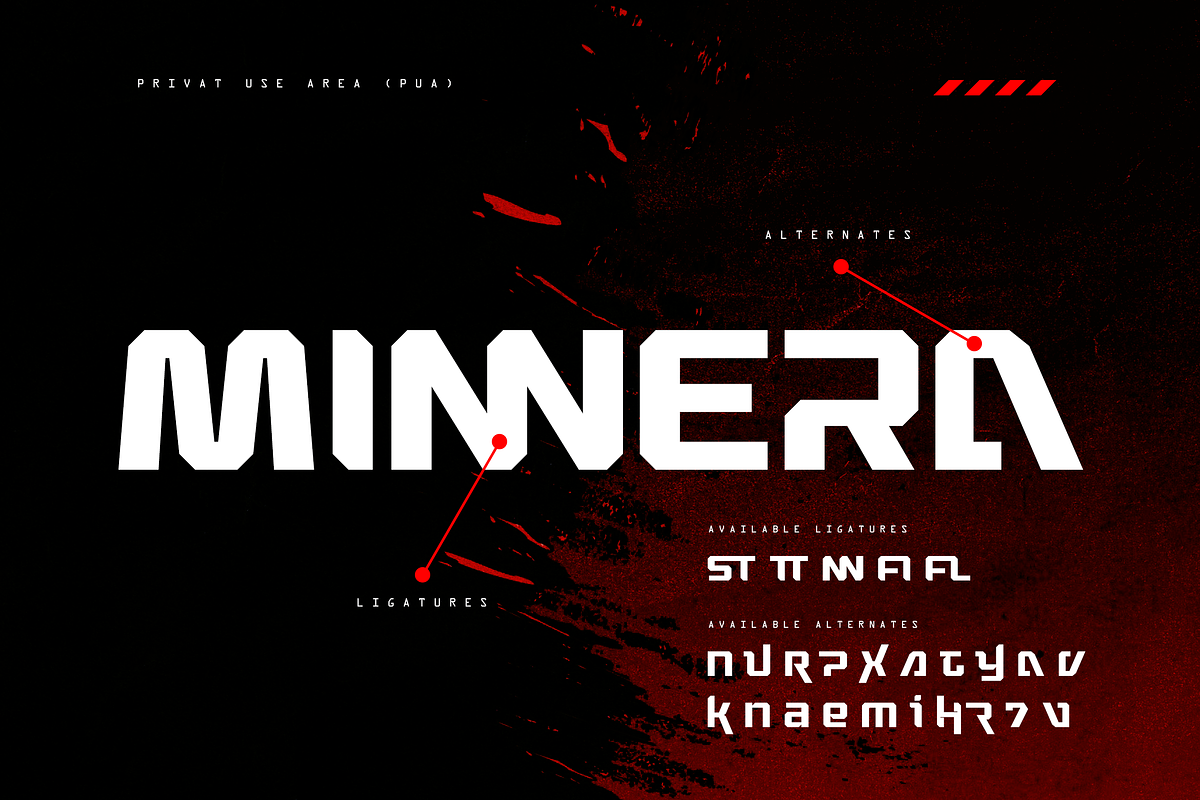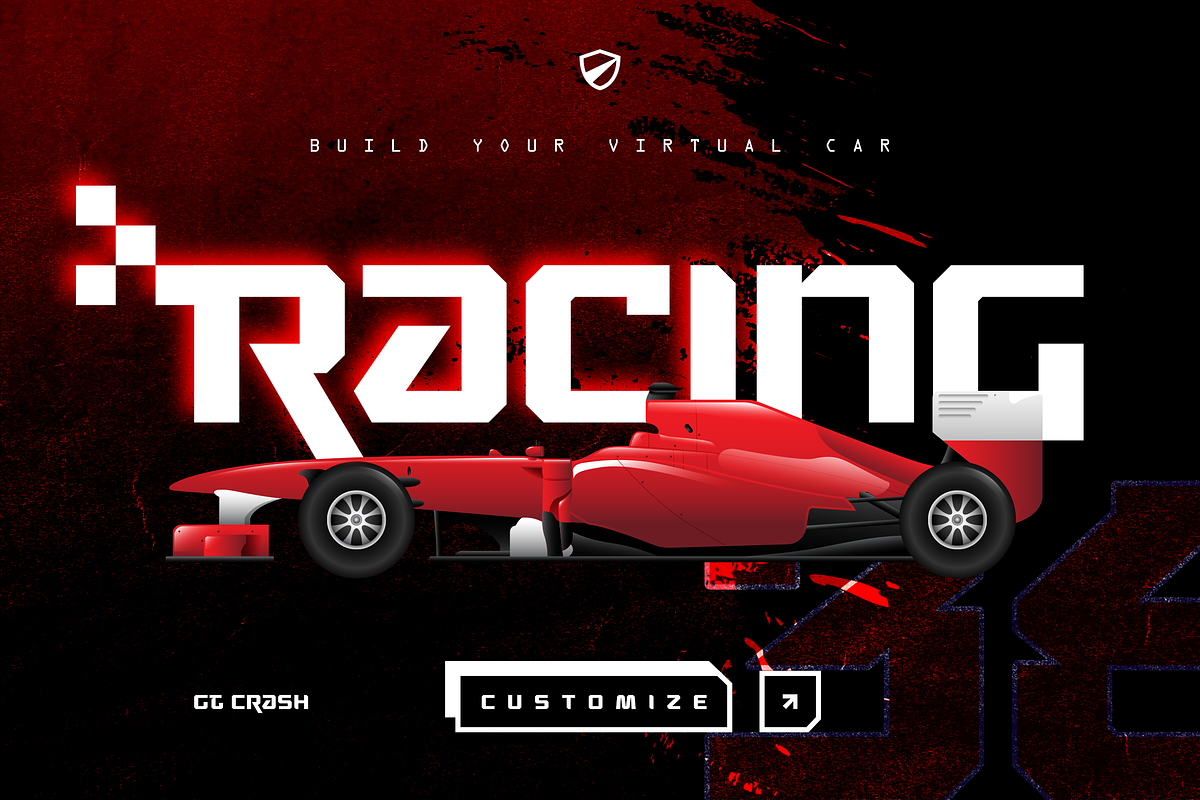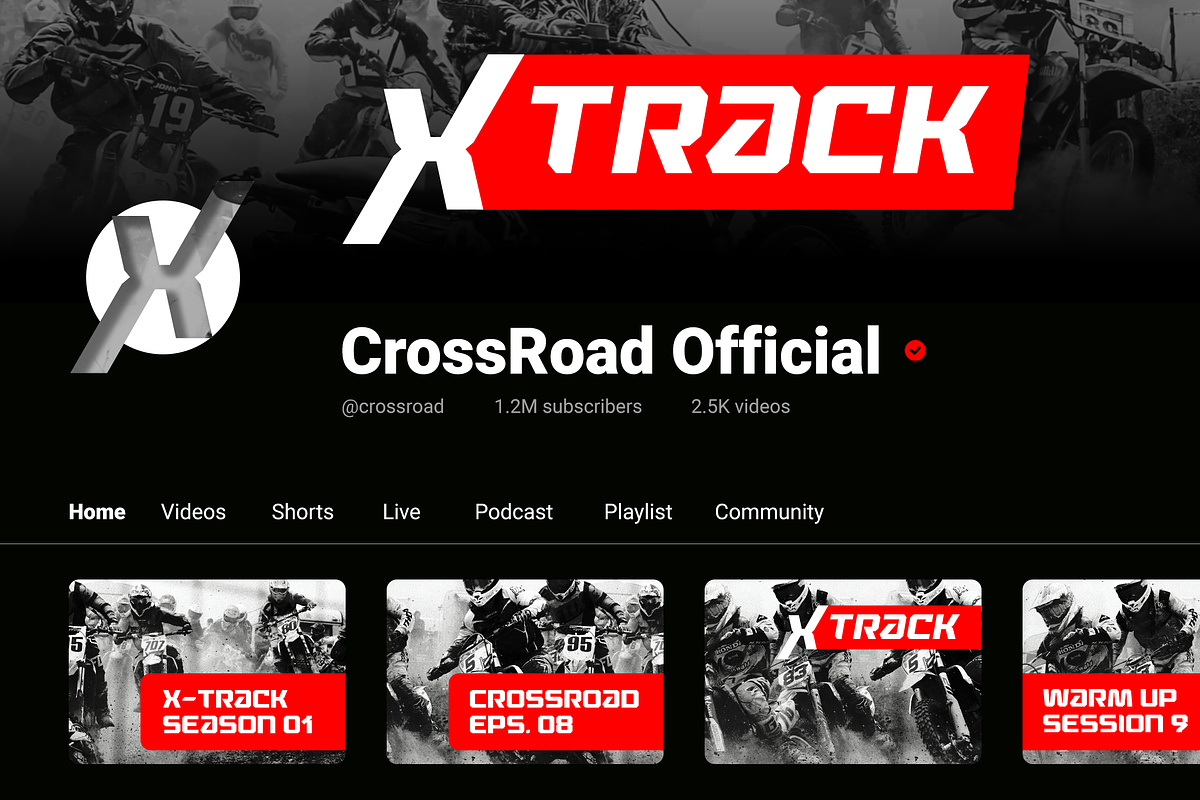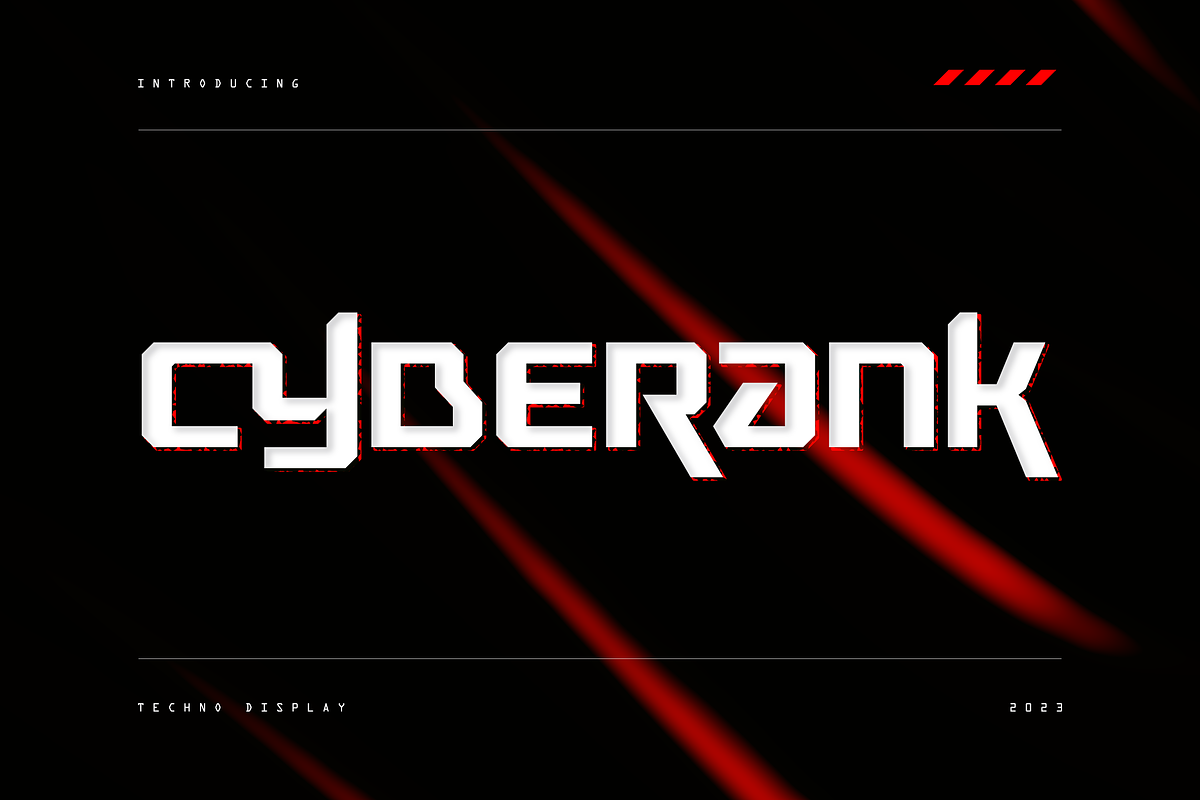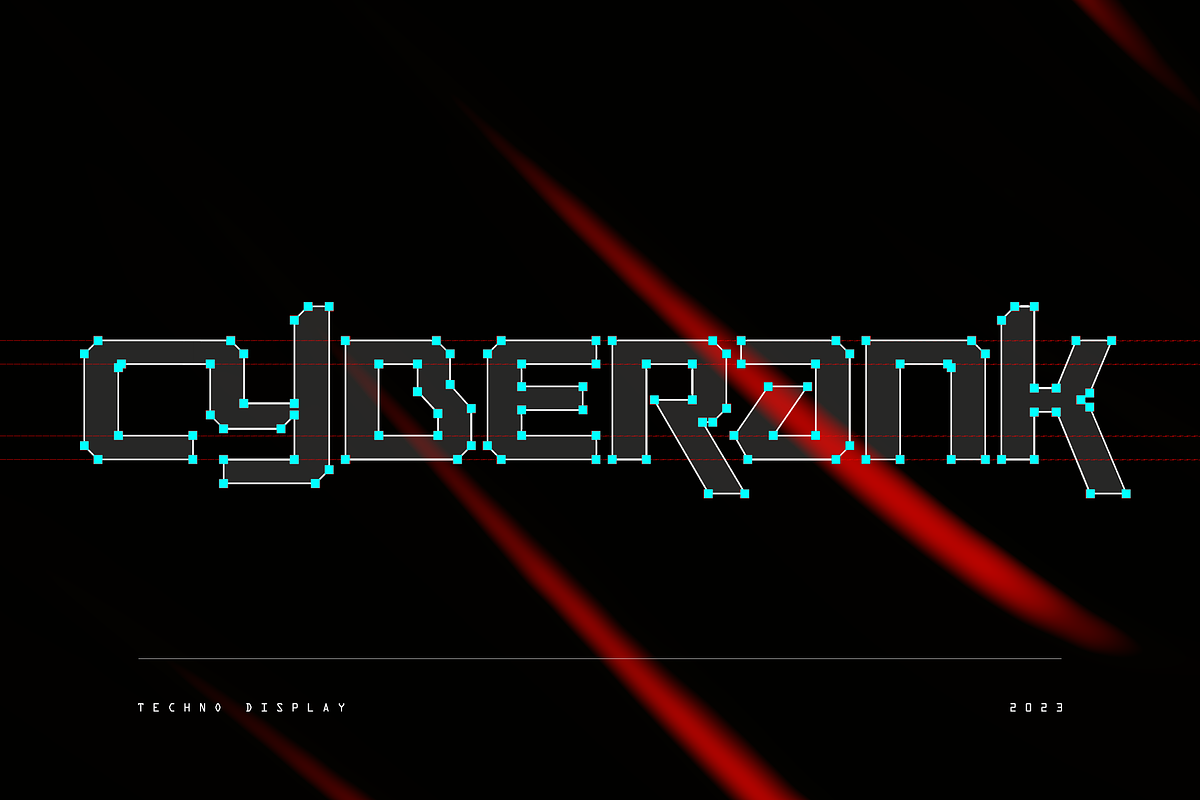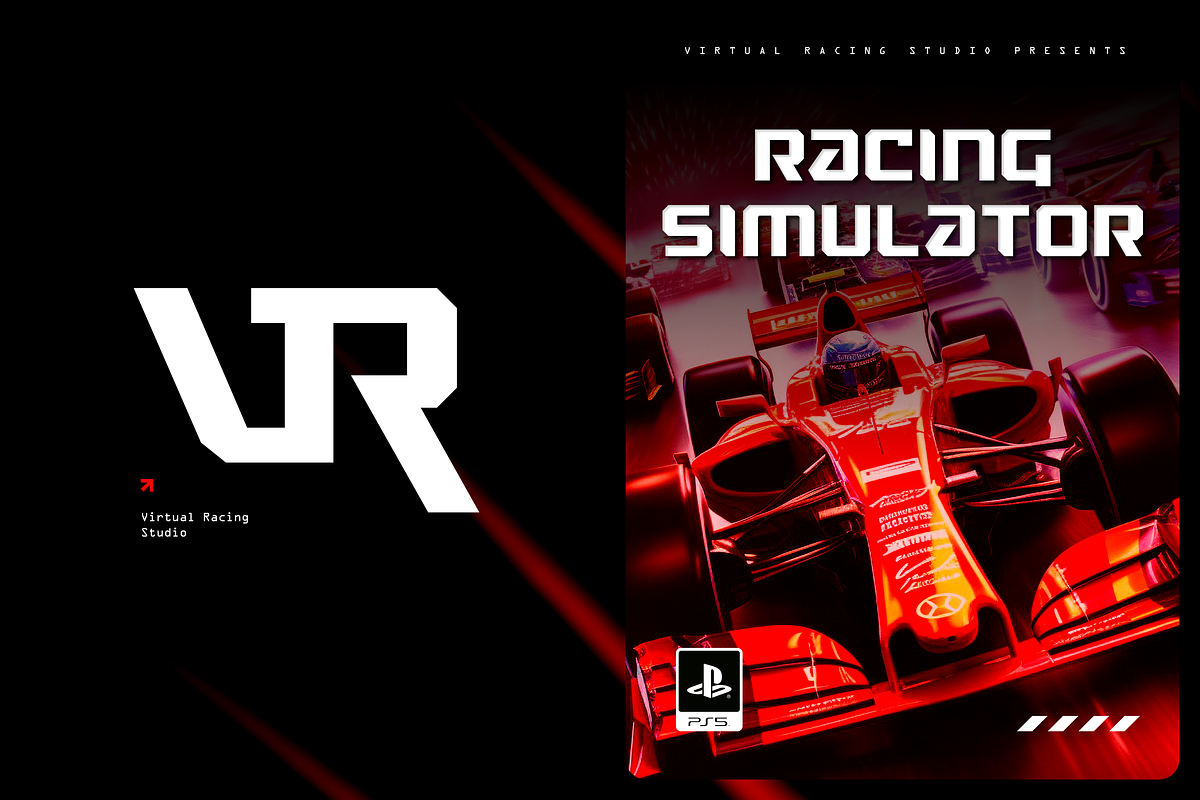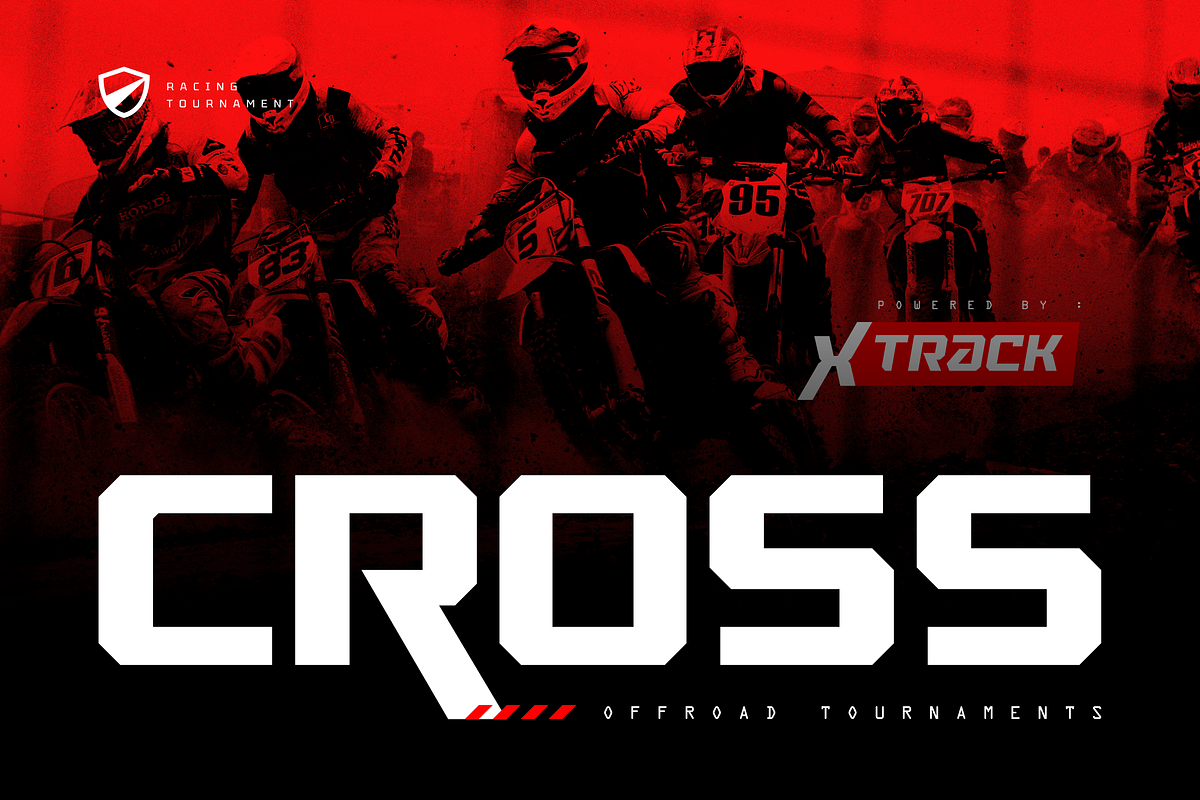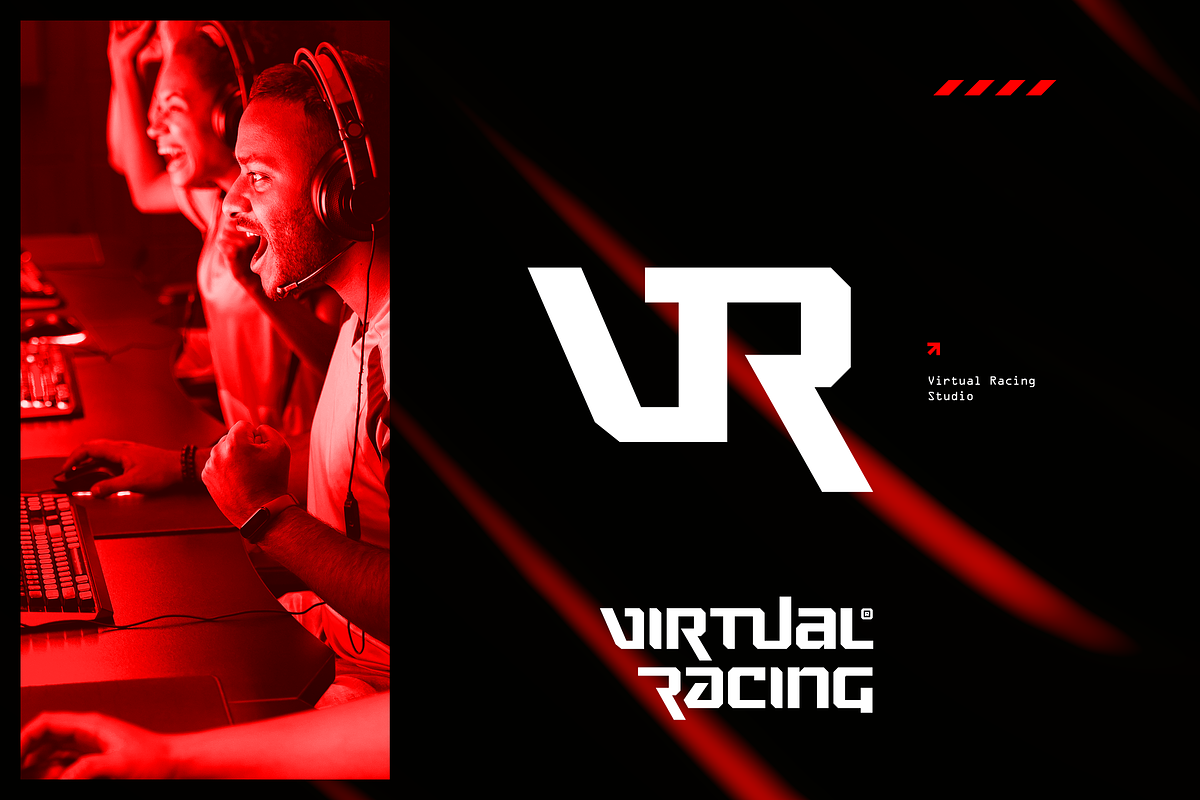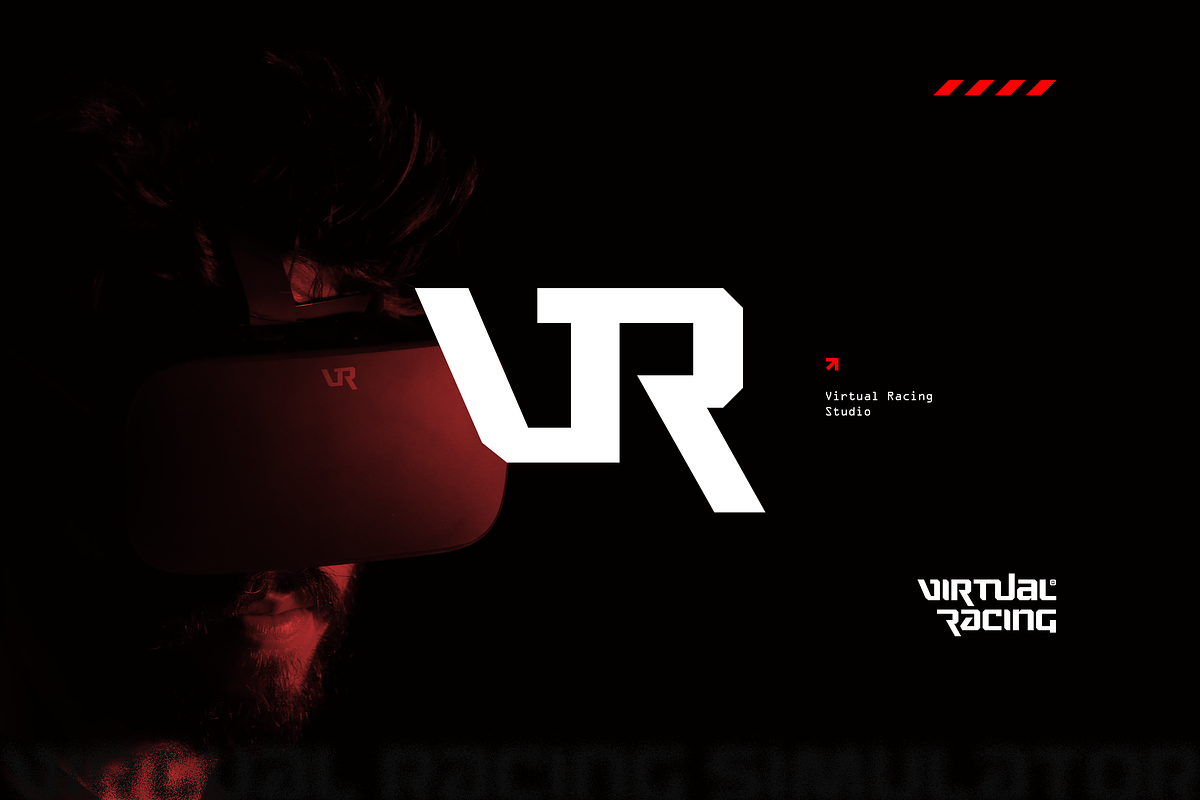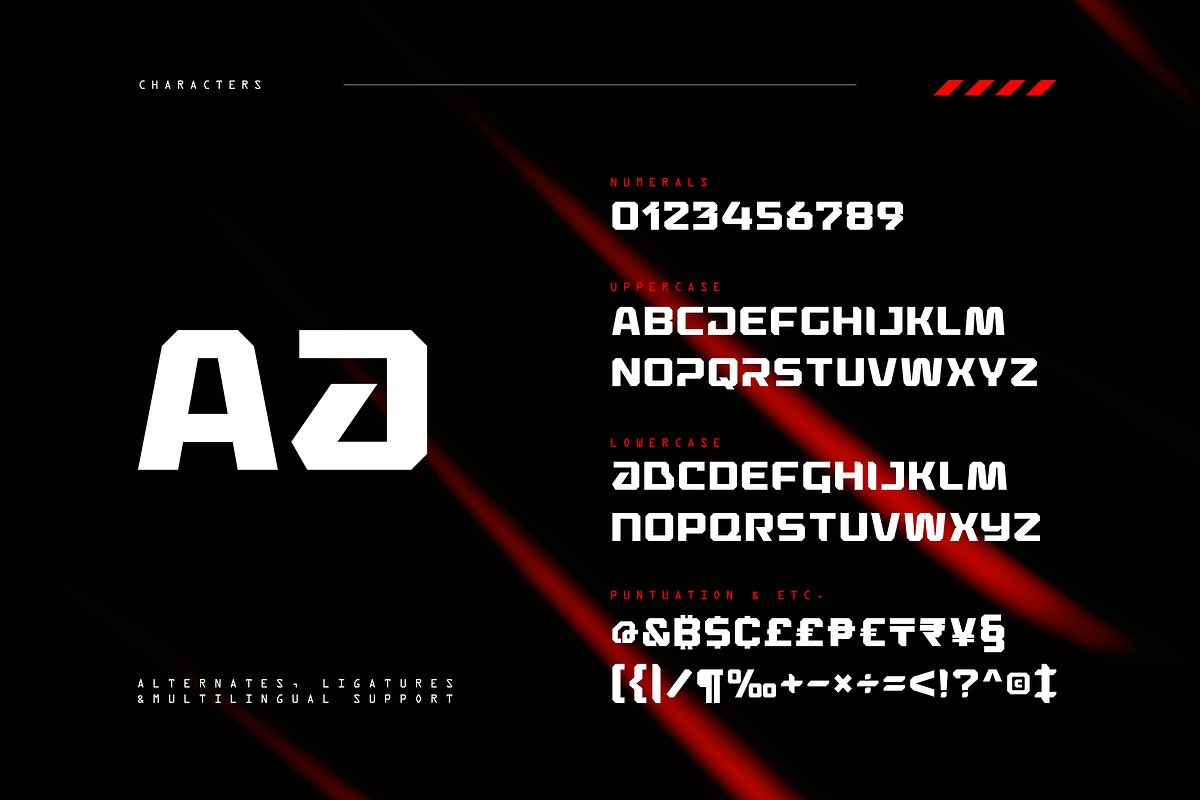
Cyberank - Techno Display
Cyberank techno display typeface is a bold geometric with sharp angles typeface to unleash creativity and transform your designs! Strong and impactful characters with a futuristic look create a powerful visual impact that will leave a lasting impression on your audience.
- Bold, Unique & Strong Techno Display Typeface
- Futuristic Character Design
- Alternates, Ligatures & Multilingual Support with PUA Encoded